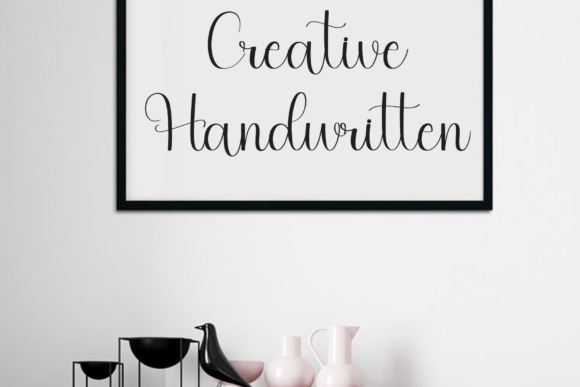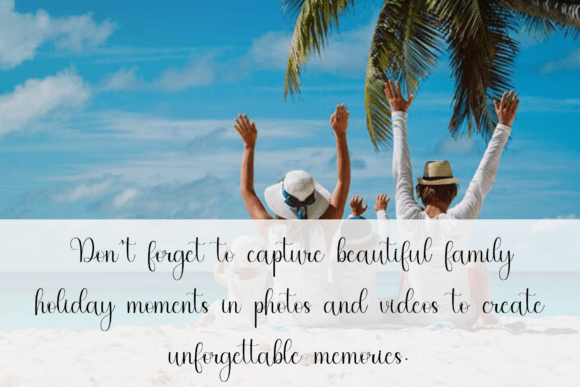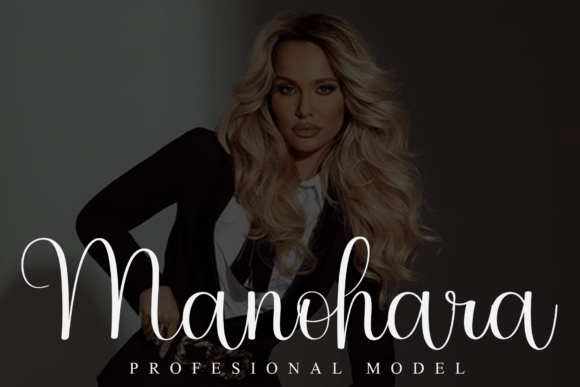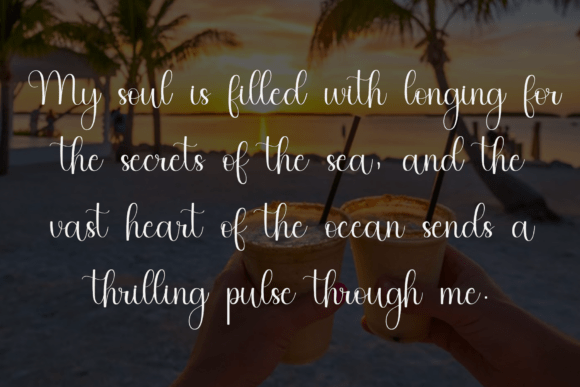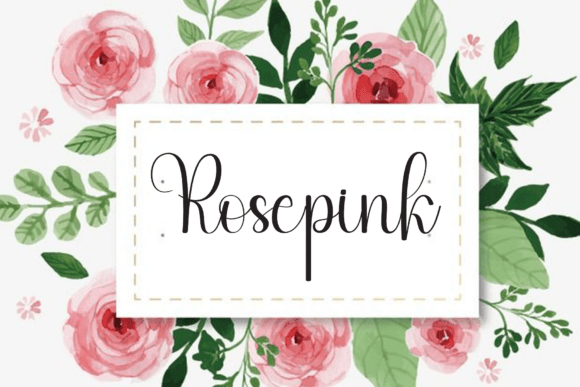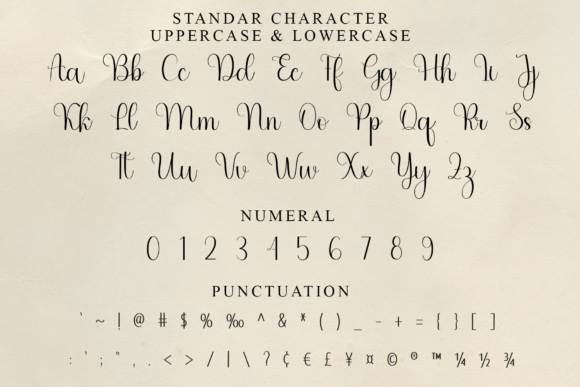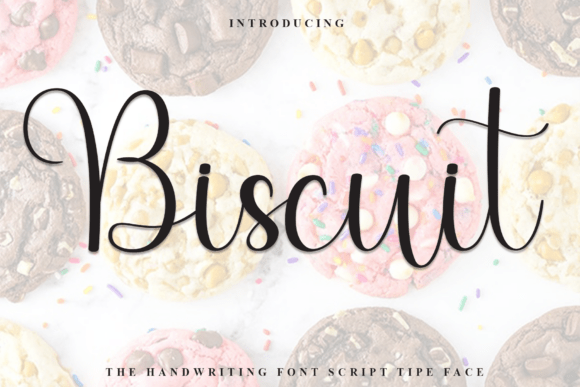
The Biscuit Font: A Warm and Playful Addition to Your Design Toolbox
I still remember the design project that led me to discover the Biscuit font. I was working on a whimsical invitation for a friend’s birthday party, and I was struggling to find the perfect font that exuded warmth and friendliness. That’s when I stumbled upon Biscuit, and it instantly became the star of the show. Its round, playful strokes and charming, hand-drawn aesthetic added a fun and unique touch to the invitation, making it a hit with the birthday girl and her guests.
An Honest Review of Biscuit Font
What I Love About Biscuit Font
• ✨ The casual and creative vibe that makes it perfect for personal projects, invitations, and social media graphics.
• ✅ The font’s charming, hand-drawn aesthetic adds a fun and unique touch to any design.
• 💕 The warmth and friendliness it exudes, making it ideal for designs that require a personal touch.
While Biscuit font is an excellent addition to any design toolbox, there are a few quirks to be aware of:
• 🤔 The font may not be suitable for formal or professional designs, as it has a distinctly casual and playful feel.
• ⚠️ Some users may find the font a bit too ornate or decorative for certain design projects.
The Story Behind Biscuit Font
Biscuit font was designed by a talented typographer who wanted to create a font that captured the warmth and friendliness of handwritten letters. Inspired by the casual, playful strokes of childhood drawings, the designer crafted a font that would add a fun and unique touch to any design. Today, Biscuit font is a popular choice among designers, crafters, and creative hobbyists who want to add a personal touch to their projects.